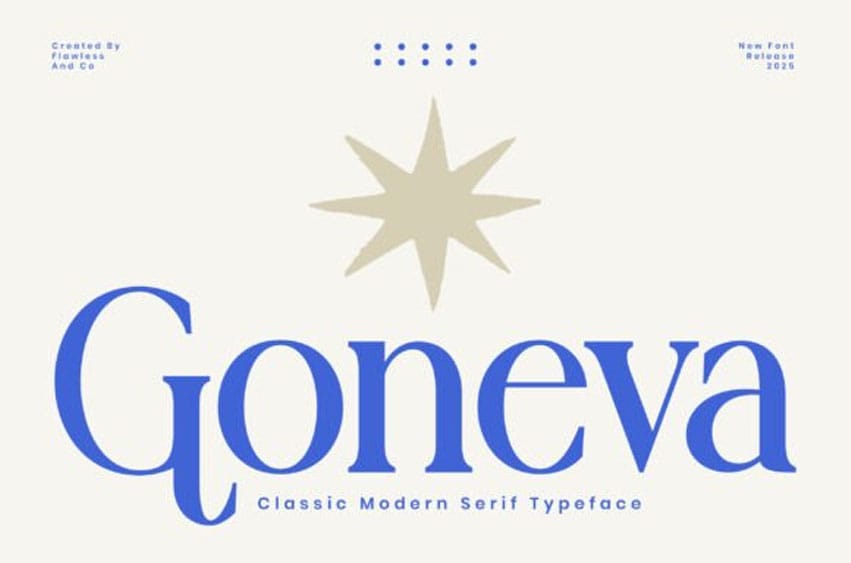
Goneva Font is a classic modern serif font that blends timeless sophistication with a clean, contemporary touch.
Every curve and serif is thoughtfully crafted to create a graceful yet confident impression — perfect for designs that seek elegance and refinement.